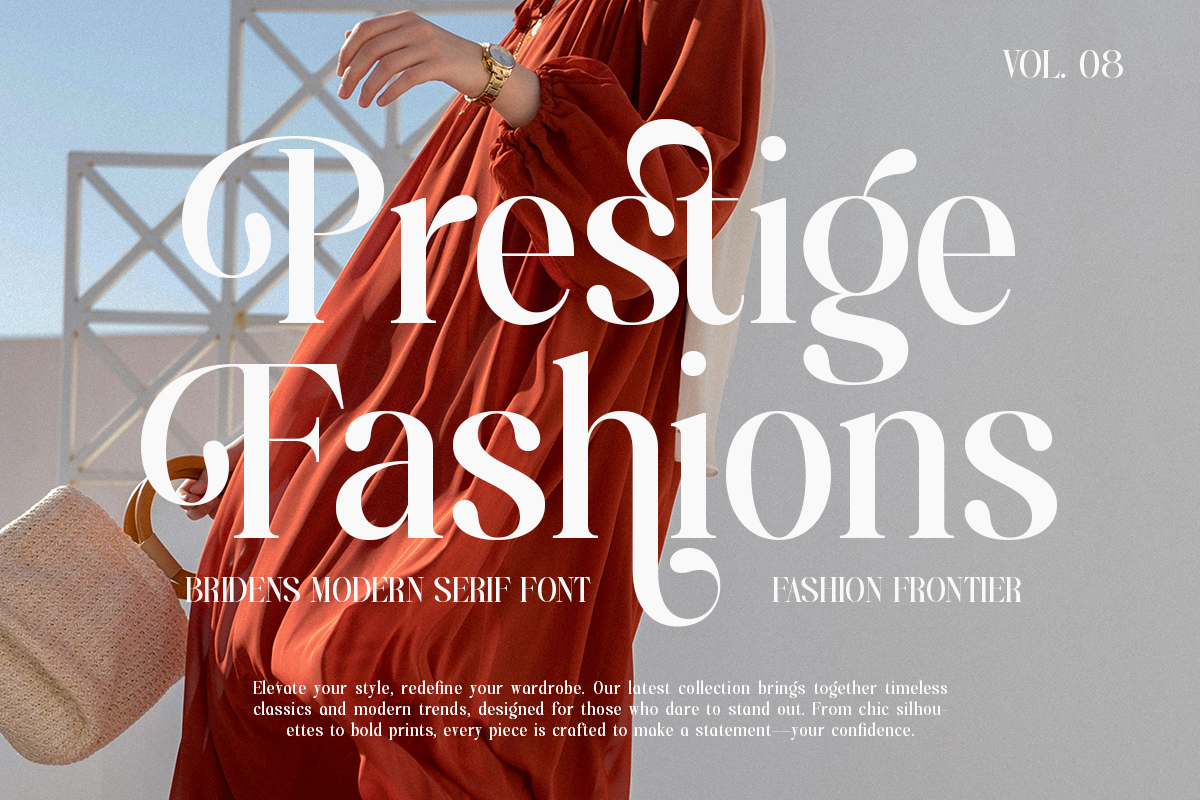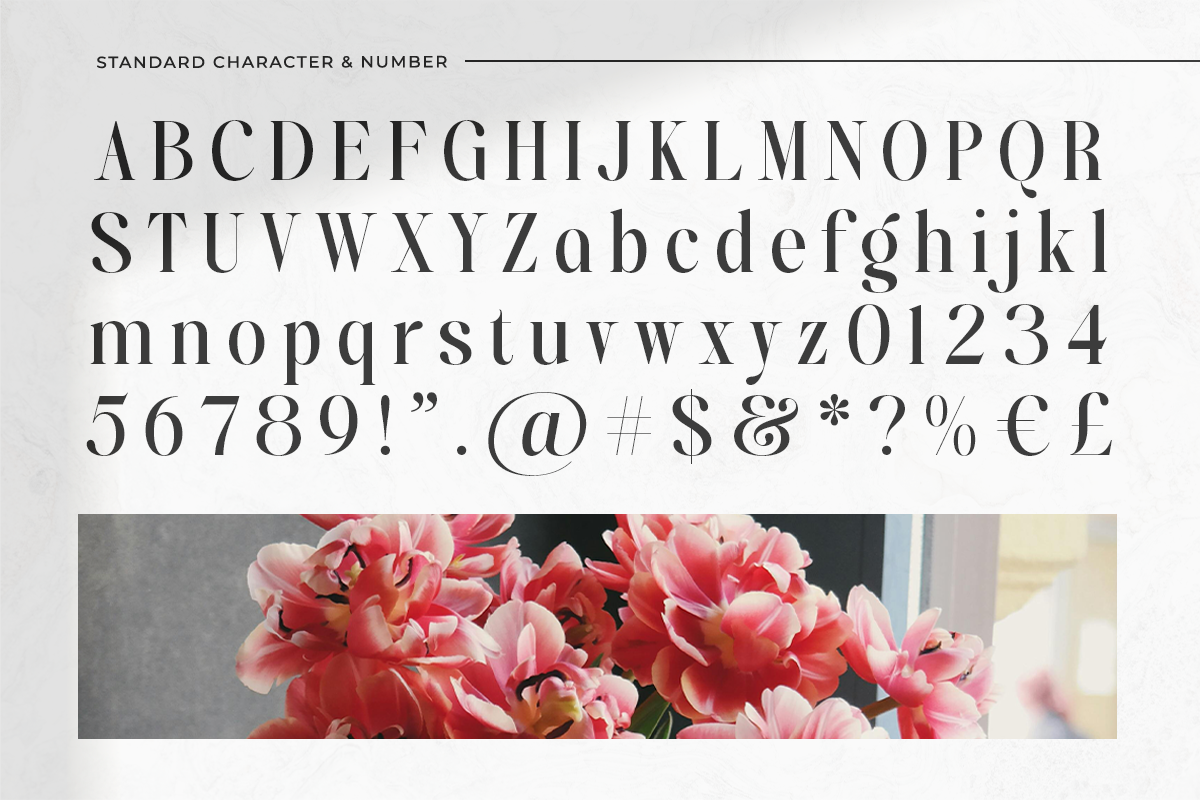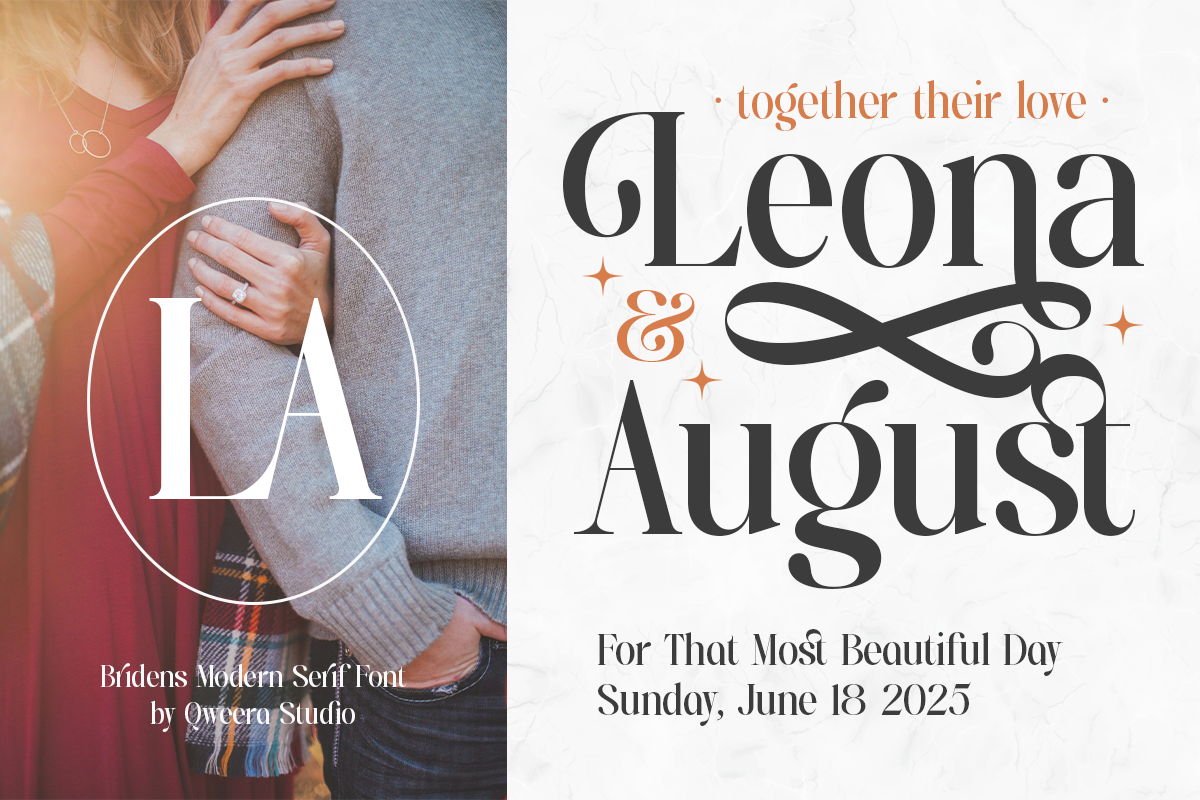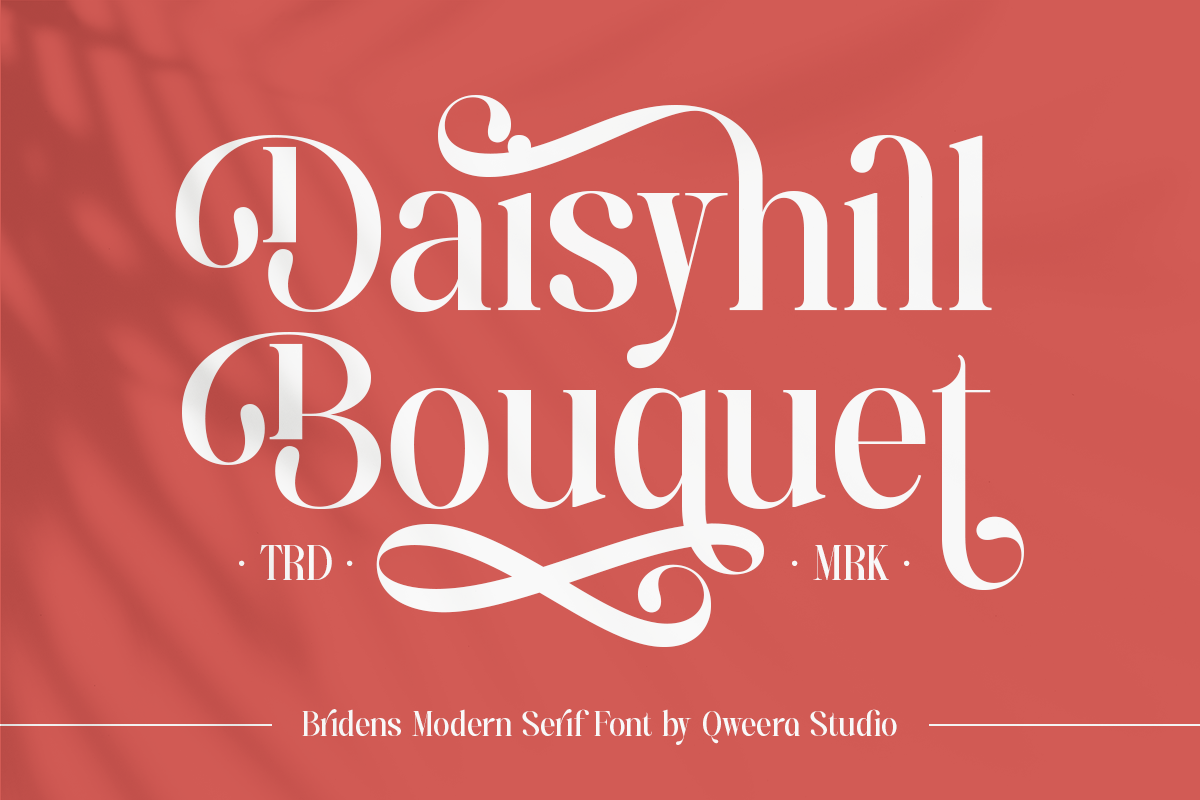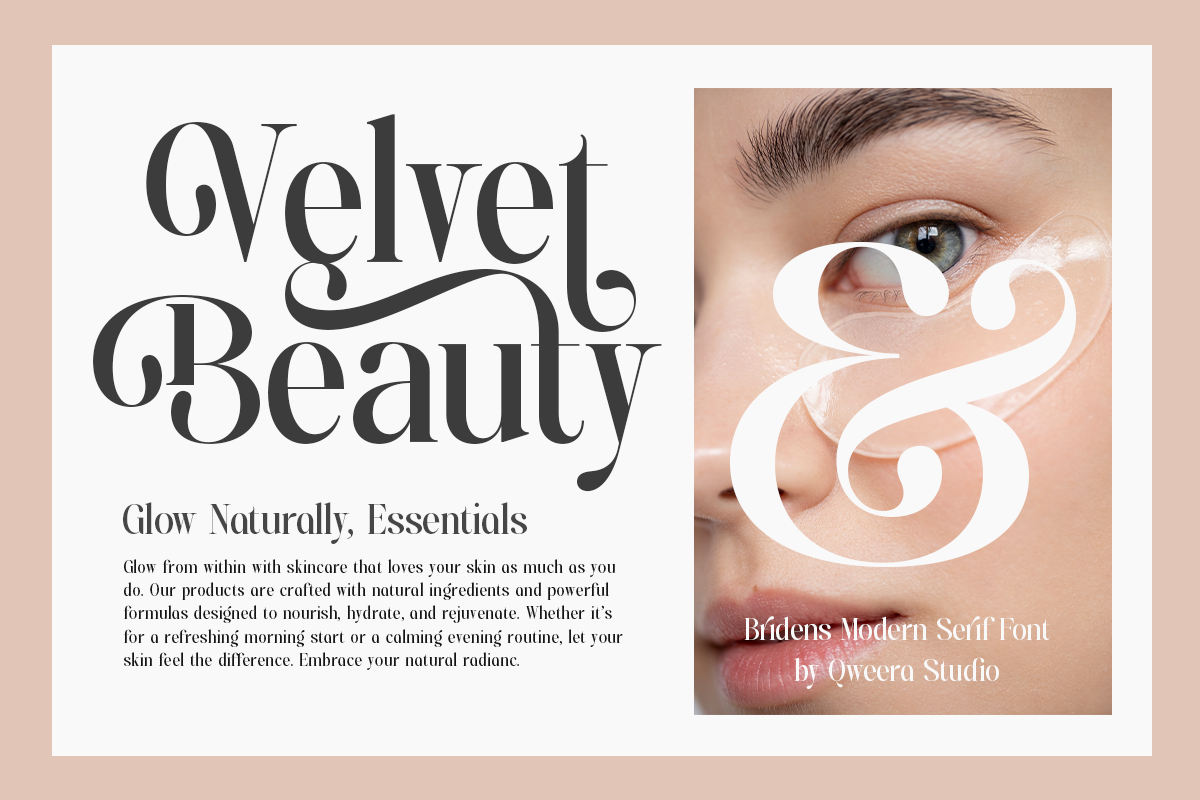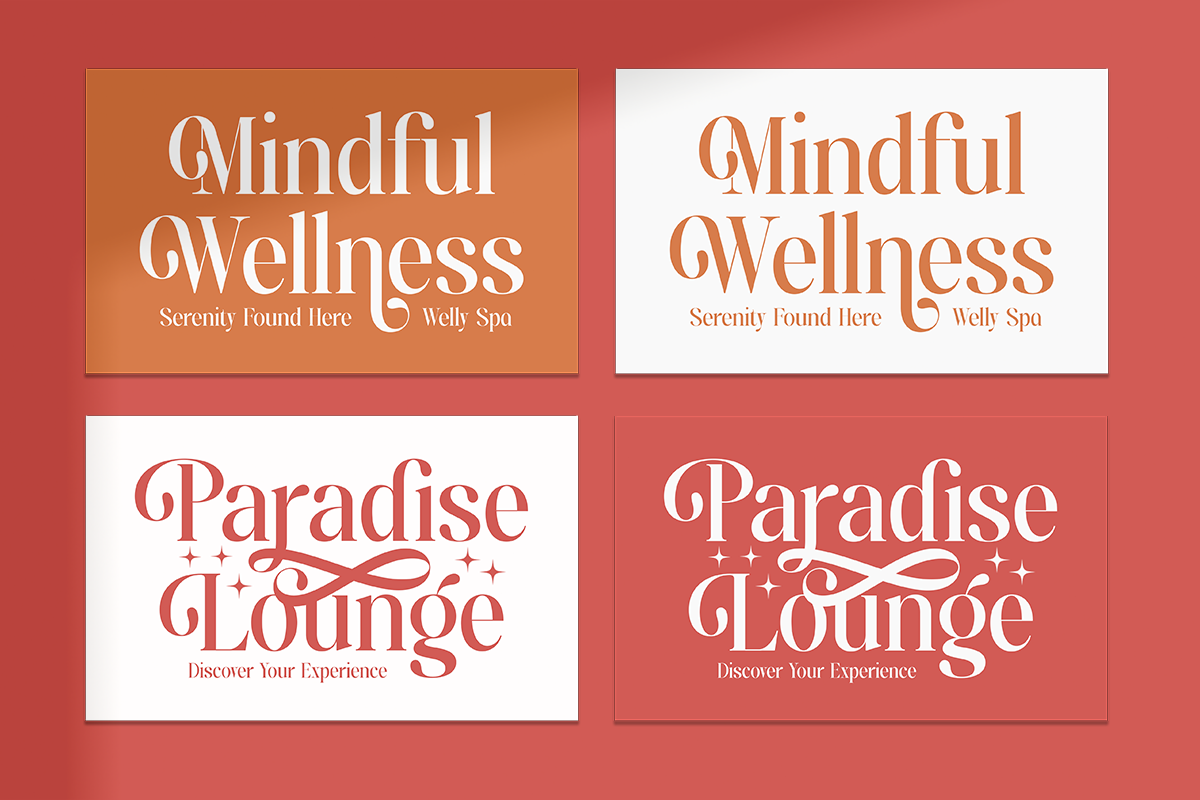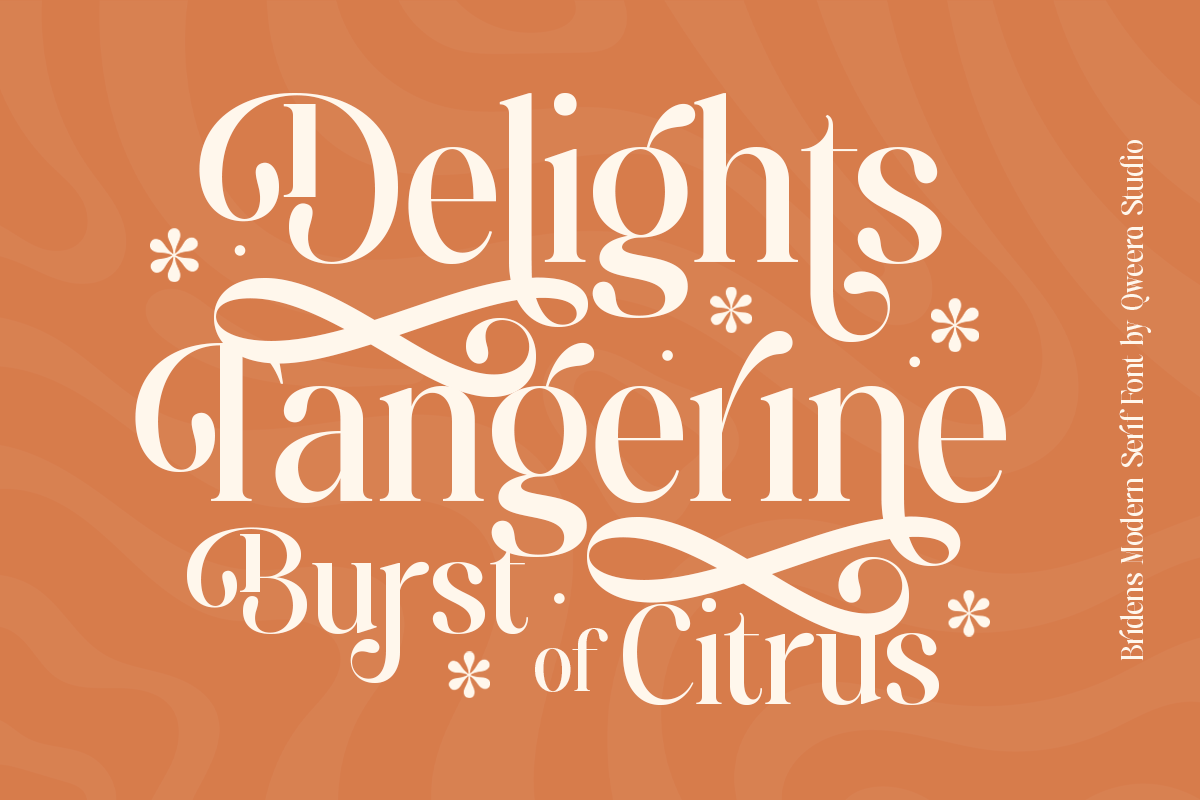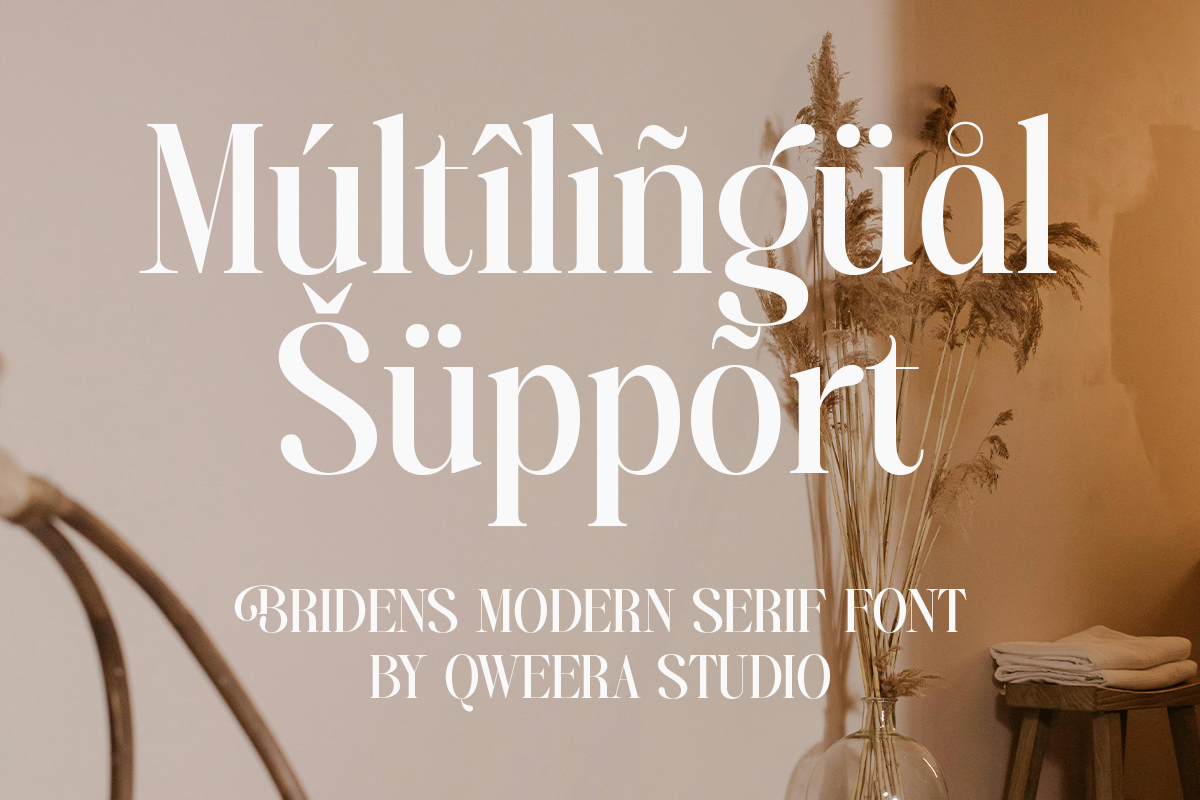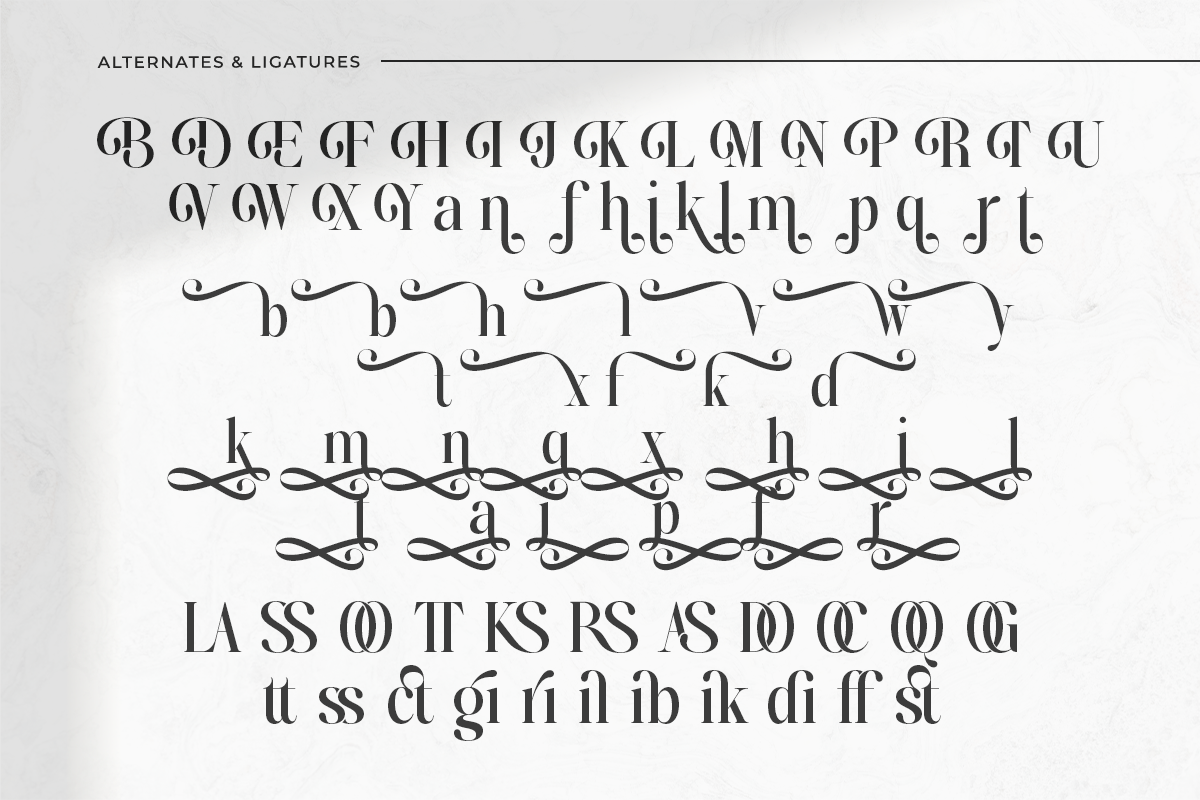
Bridens - Modern Serif Display
"Introducing Bridens, a modern serif display font that exudes sophistication and style. Available in both Regular and Italic versions, Bridens offers a wide range of creative possibilities with its stylish alternates and ligatures. Perfectly suited for branding, editorial design, web typography, or any creative project that demands a bold, elegant touch. Bridens is the ultimate choice for making your designs stand out while maintaining a timeless appeal. Unleash your creativity with this versatile and modern typeface."
- Regular & Italic
- All Multilingual symbol
- Opentype features ( ligature, alternate )
Multilingual character supports : (Afrikaans, Albanian, Catalan, Croatian, Czech, Danish, Dutch, English, Estonian, Finnish, French, German, Hungarian, Icelandic, Italian, Lithuanian, Maltese, Norwegian, Polish, Portuguese, Slovenian, Spanish, Swedish, Turkish, Zulu)